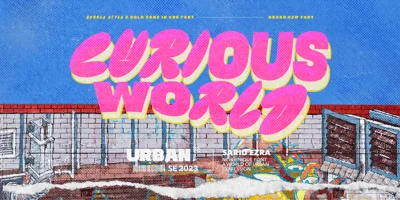
Curious World Font
Curious World Font is perfect for exploratory projects including travel blog headers, adventure tourism branding, children's educational materials, discovery channel graphics, global culture magazines, exploration company logos, curiosity-driven campaigns, and wanderlust-inspired designs. This adventurous typeface brings worldly wonder and intellectual curiosity to any design project.
What makes Curious World Font exciting is its perfect capture of global exploration and cultural discovery through playfully sophisticated letterforms. The engaging character design features worldly elements and inquisitive details that evoke the thrill of discovering new places and cultures while maintaining excellent international readability. This font delivers the perfect balance of adventure and accessibility, creating an atmosphere of wonder that inspires exploration and learning.
The Curious World Font family typically includes multiple weights with exploratory styling, complete uppercase and lowercase alphabets, numerals, punctuation, and international symbols. The design often features globe-inspired characteristics and cultural elements that enhance the worldly aesthetic. Premium versions may include stylistic alternates, travel symbols, and additional international characters perfect for global and educational applications.
Whether you're designing for travel companies, educational institutions, or cultural organizations, Curious World Font delivers the inspiring curiosity that motivates exploration and discovery. Its engaging presence makes it ideal for memorable campaigns and educational materials that need to spark wonder and encourage learning. The font's exploratory heritage ensures it communicates adventure and knowledge, making it perfect for any project requiring the captivating aesthetic of global discovery and intellectual curiosity.